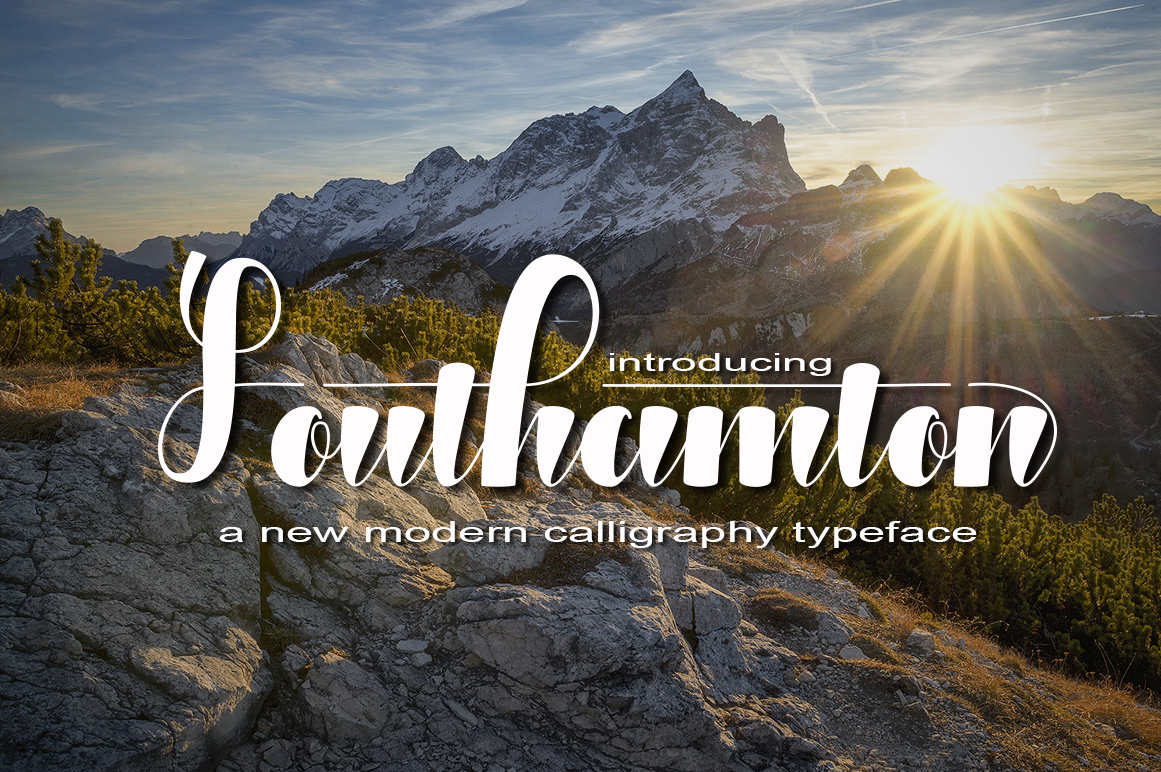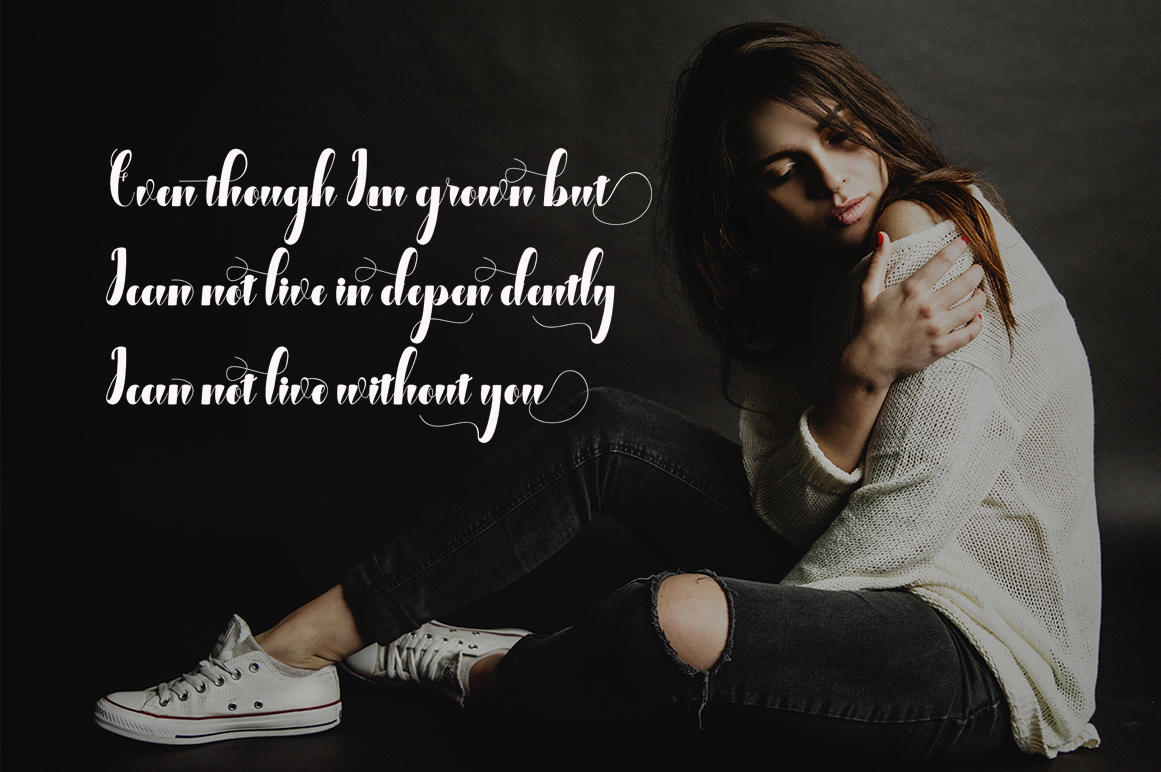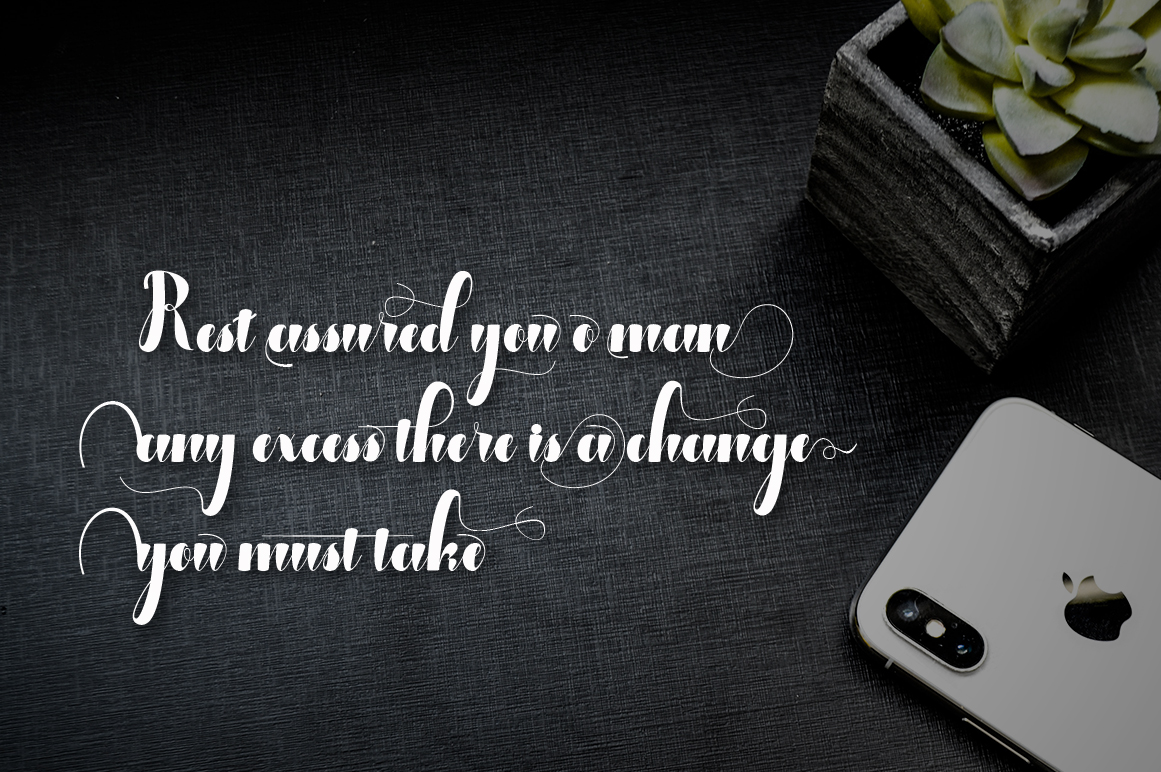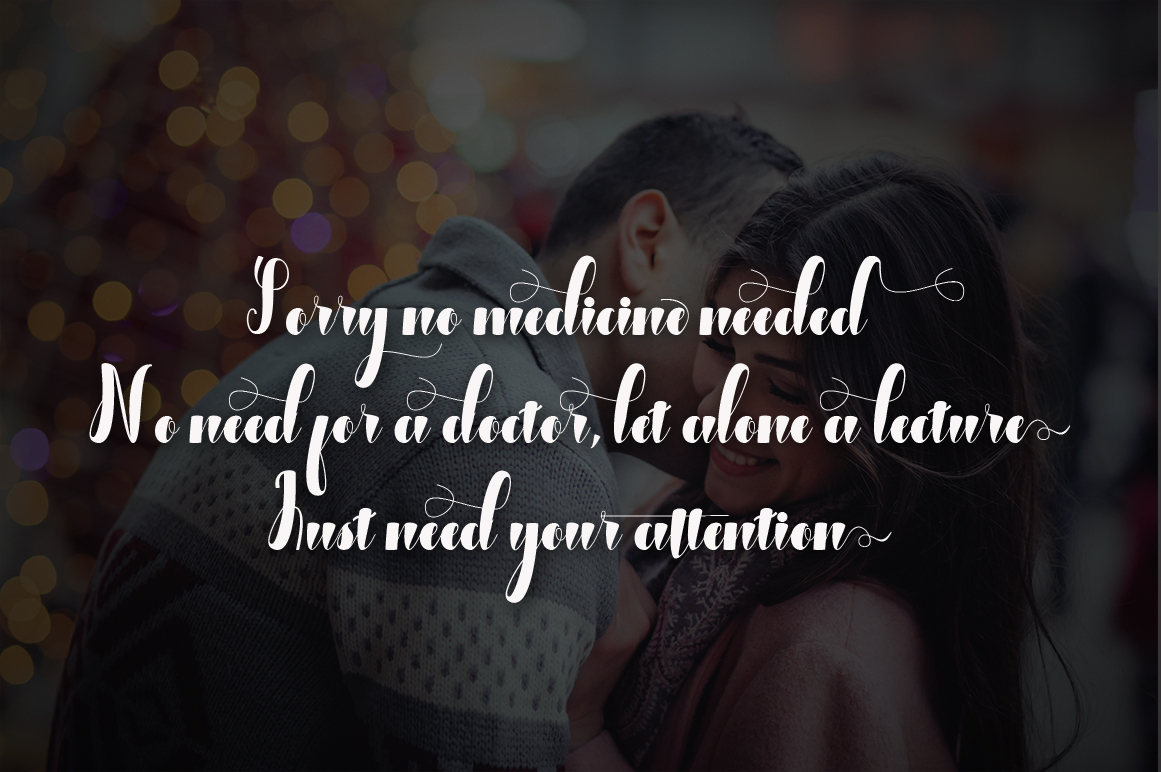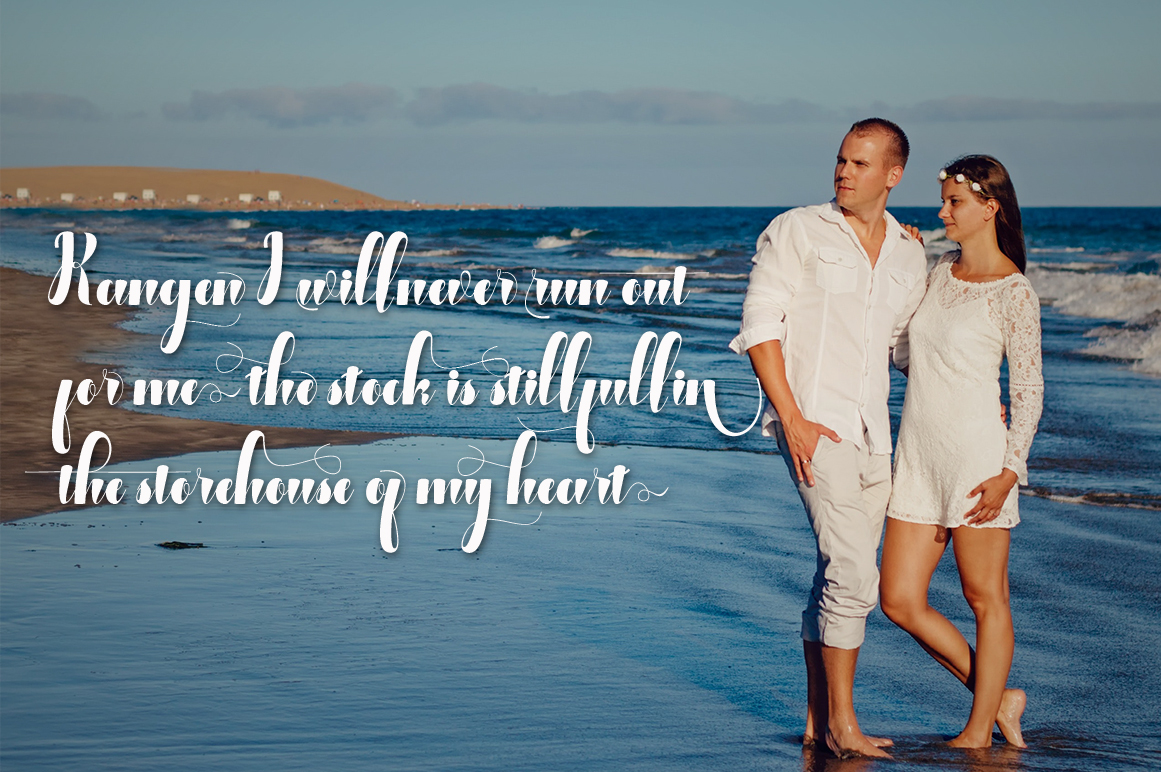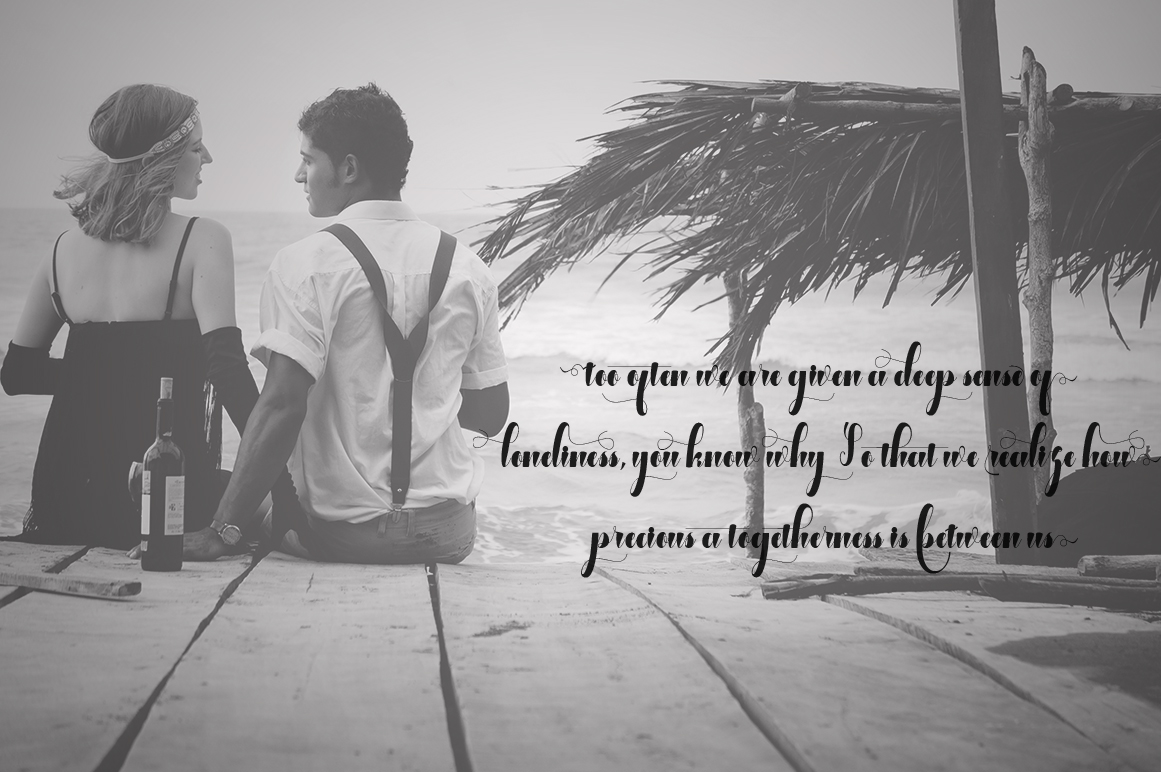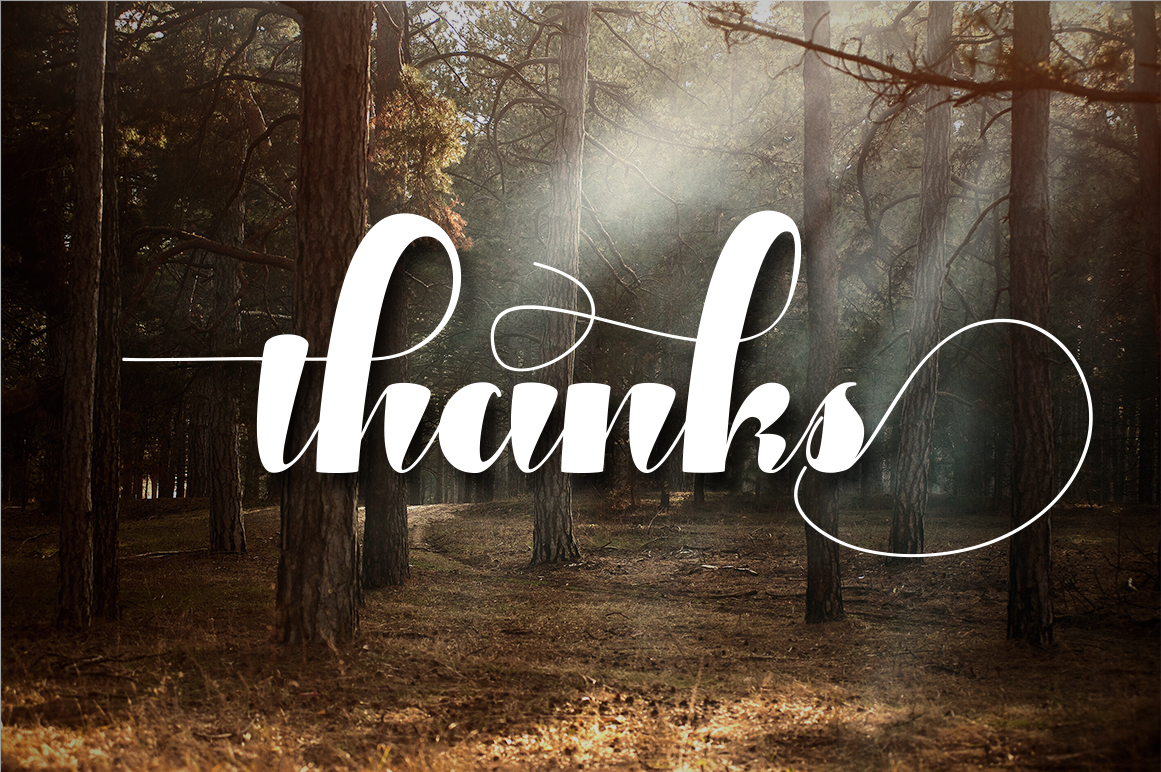
Southamton Font
About Southamton Font
Southamton is a modern script font crafted in a calligraphy style. This font is a great option for elegant display projects.